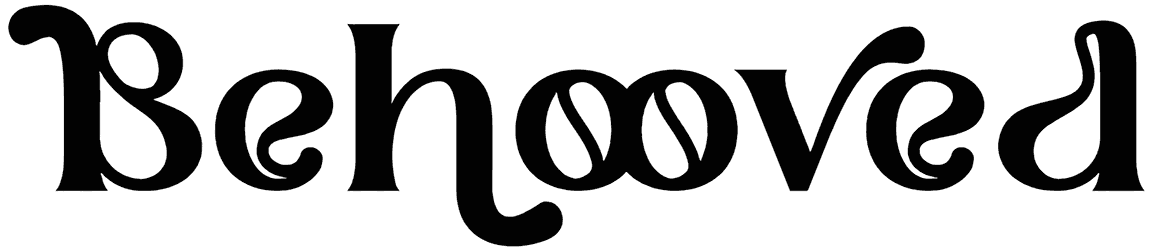
Behooved Font
Anything new can become ordinary after a while, but the element of surprise always remains important in taking people’s attention through your words. Like, how can you ever get used to a bunch of letters that look like they’re made of smoke?
That’s what Behooved does to make a good first impression on the audience, and the origin of that psychedelic aura as well. With the added playfulness of groovy swashes, it can be such a great hookah bar poster, etc.